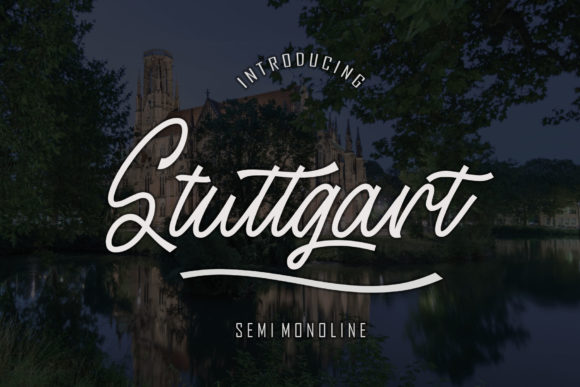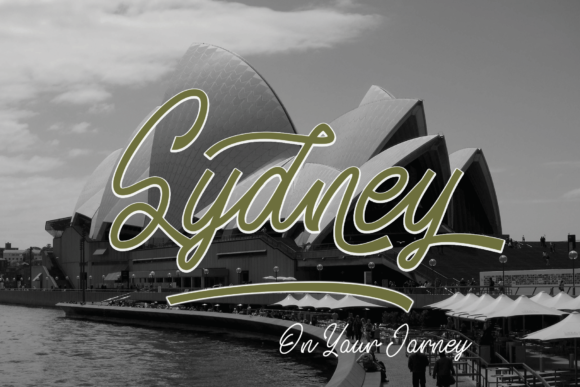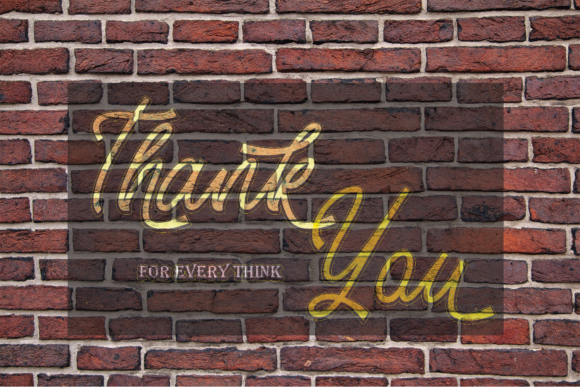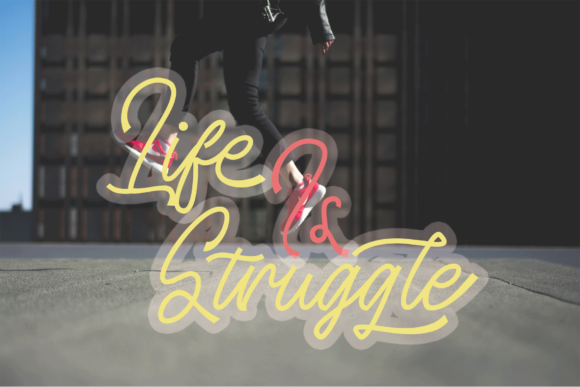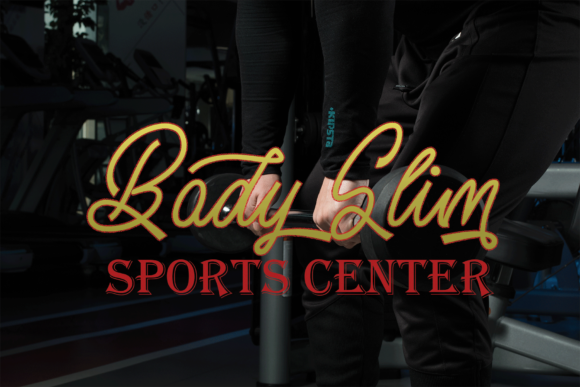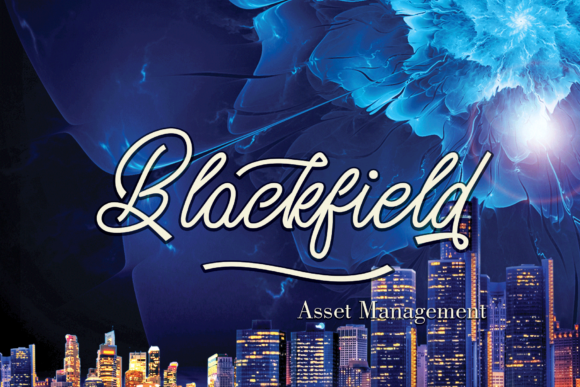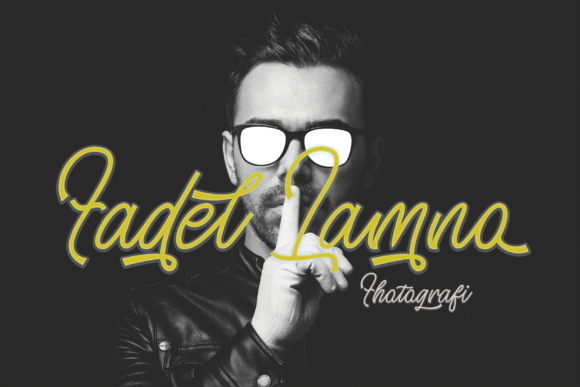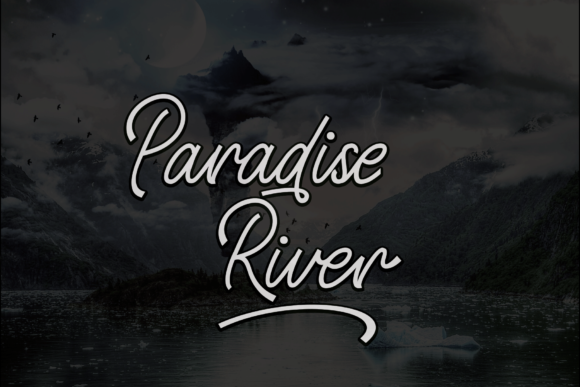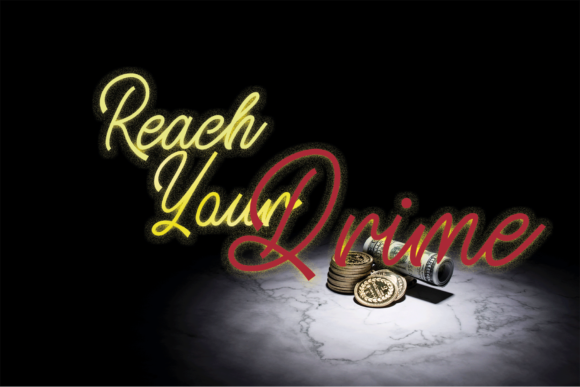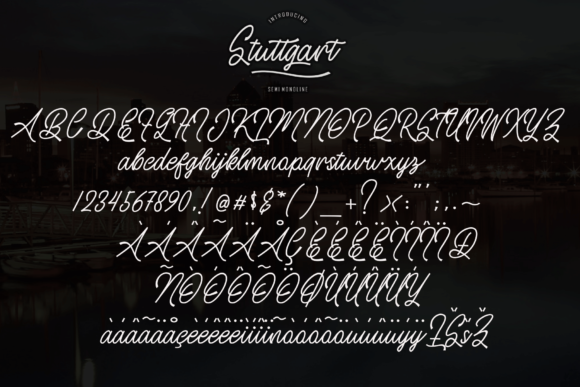
HomeScript FontsStuttgart Font Script Fonts Stuttgart Font FacebookXPinterestWhatsApp Stuttgart Font Poster 2 Stuttgart Font Poster 3 Stuttgart Font Poster 4 Stuttgart Font Poster 5 Stuttgart Font Poster 6 Stuttgart Font Poster 7 Stuttgart Font Poster 8 Stuttgart Font Poster 9 Stuttgart Font Poster 10 Stuttgart Font Poster 11 About Stuttgart Font Stuttgart is a sweet and lovely script that will add an authentic touch to any design project. DOWNLOAD NOW People also explored Monday Free Font Dreamy Siberica Font Christmas Family Font Scary Blood Font Finger Prints Glyph Font Optimistic Signature Font Heather Prism Peach Bella Canvas 3001 Halima Script Font Handmade School Font 306 0 TagsStuttgart Font Previous articleNavigate FontNext articleMetrix Snake Font LEAVE A REPLY Cancel reply Comment: Please enter your comment! Name:* Please enter your name here Email:* You have entered an incorrect email address! Please enter your email address here Website: Save my name, email, and website in this browser for the next time I comment. Personal Use Free Tide Personal Use Free Read more about this font Whitelight Personal Use Free Read more about this font Dacquoise Personal Use Free Read more about this font Shkoder 1989 Personal Use Free Read more about this font BLOG To increase your work productivity, choose the most readable fonts. In today's fast-paced work environment, where digital communication and information consumption are integral to our daily routines, the choice of fonts can significantly impact... Free vs Paid Fonts: Why Investing in Premium Fonts Is Worth It How to Cut Any Font on Cricut: Convert a Font to SVG (Free) Fonts That Capture the Spirit of New York City